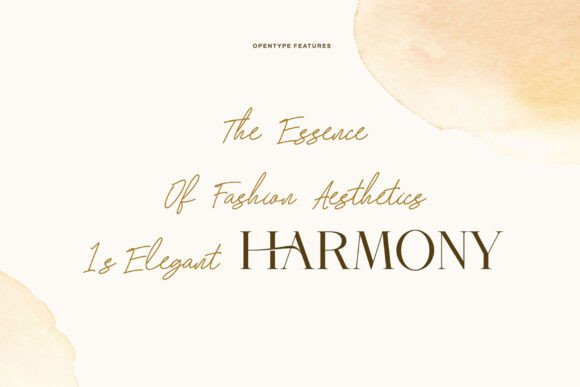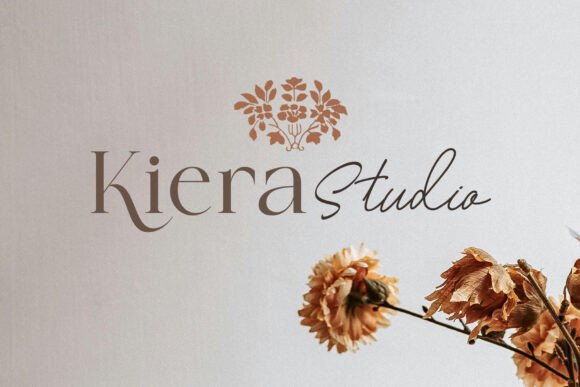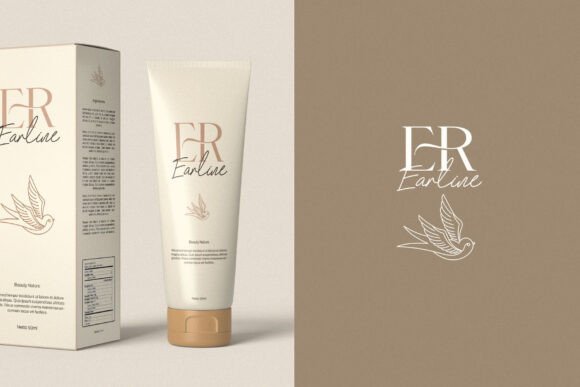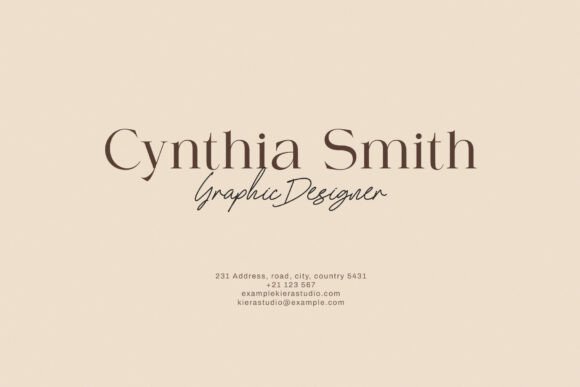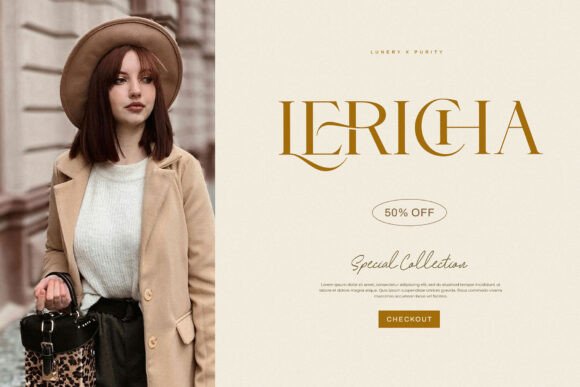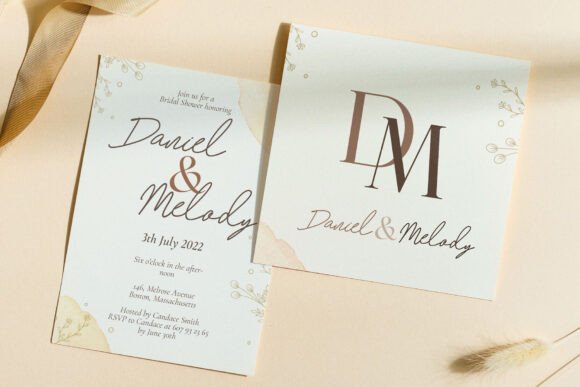
Introduction to Lunery Purity Font
Presenting the Lunery Purity Font includes various uppercase letters, numbers, and punctuation.
Modern style serif fonts include ligatures and alternate characters Created for posters, web design, branding, illustrations, badges, and several other works.
Key Features of Lunery Purity Font